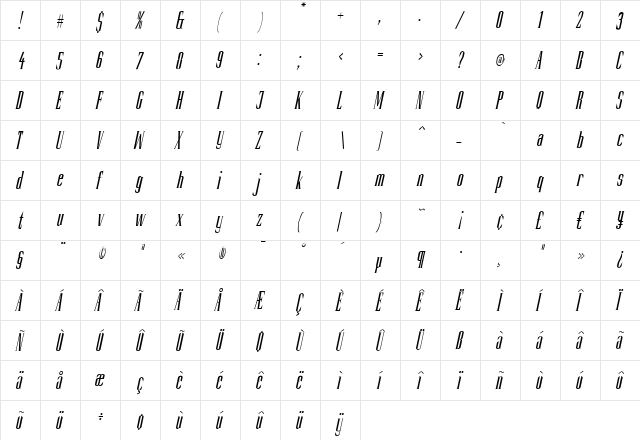
Slim Kim Plain Italic
Design Context for Slim Kim Plain Typeface
Slim Kim Plain offers clean, dependable letterforms without strong stylistic allegiance, making it a practical choice for designers who need flexibility. The slanted form adds forward momentum and visual energy.
Pro Tip: Try Slim Kim Plain for annotation and caption copy alongside an upright companion — the contrast in angle creates a dynamic but ordered typographic system.